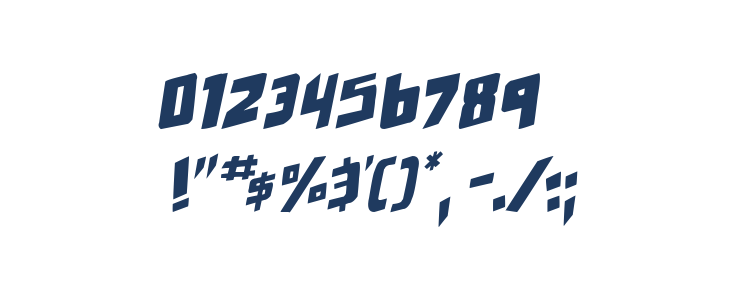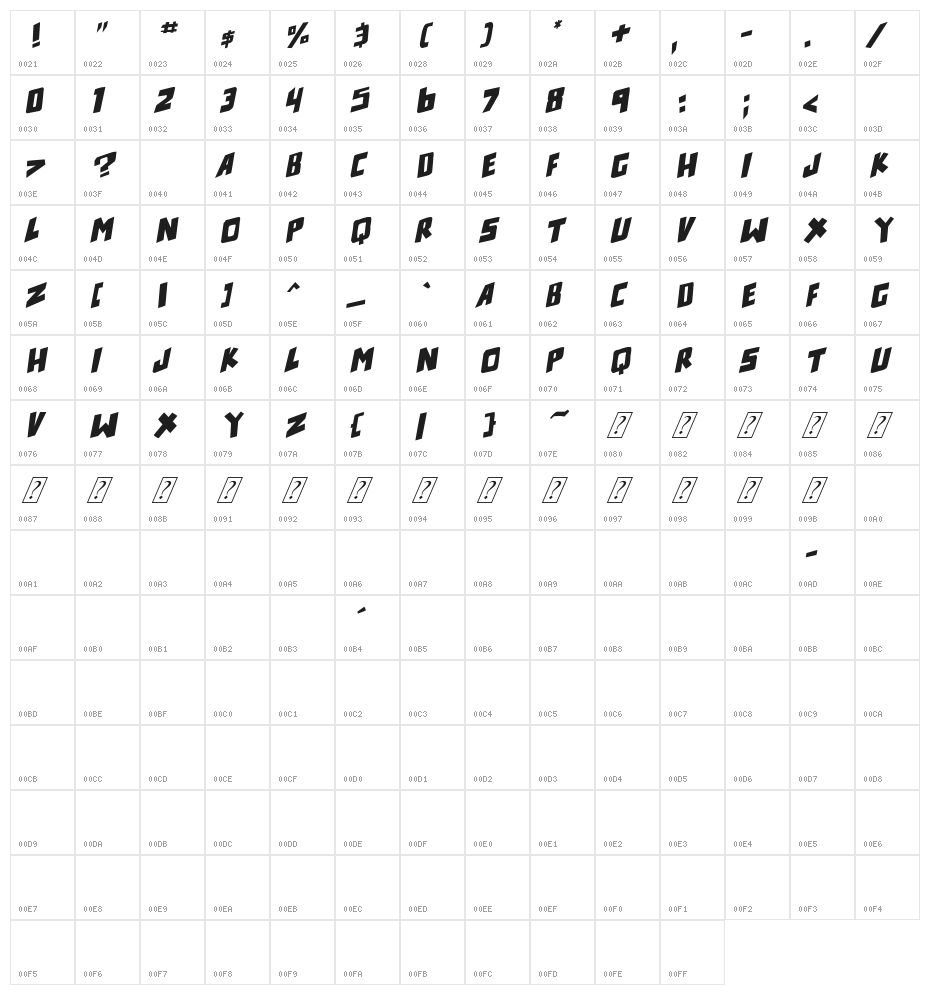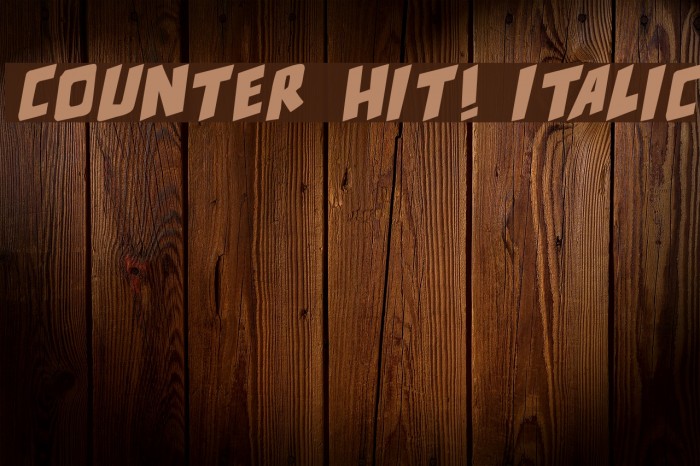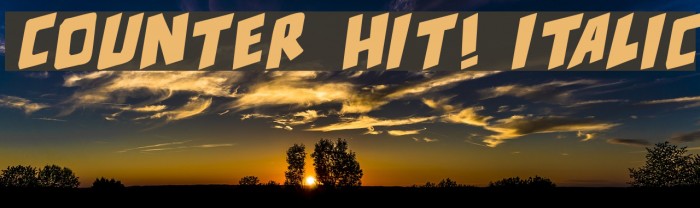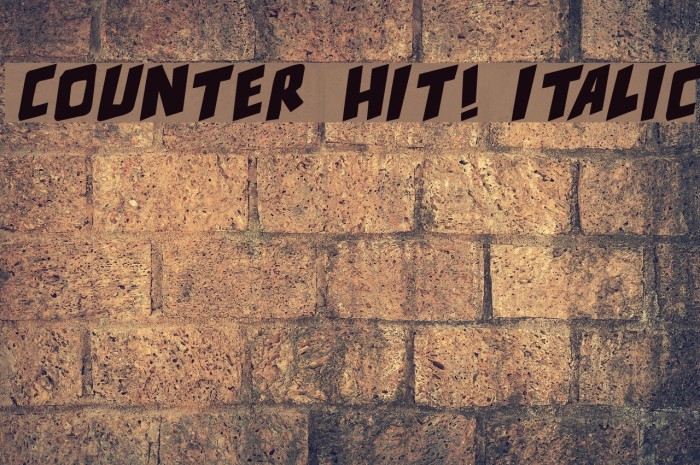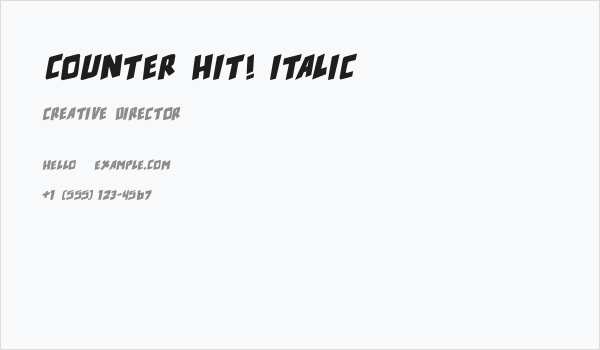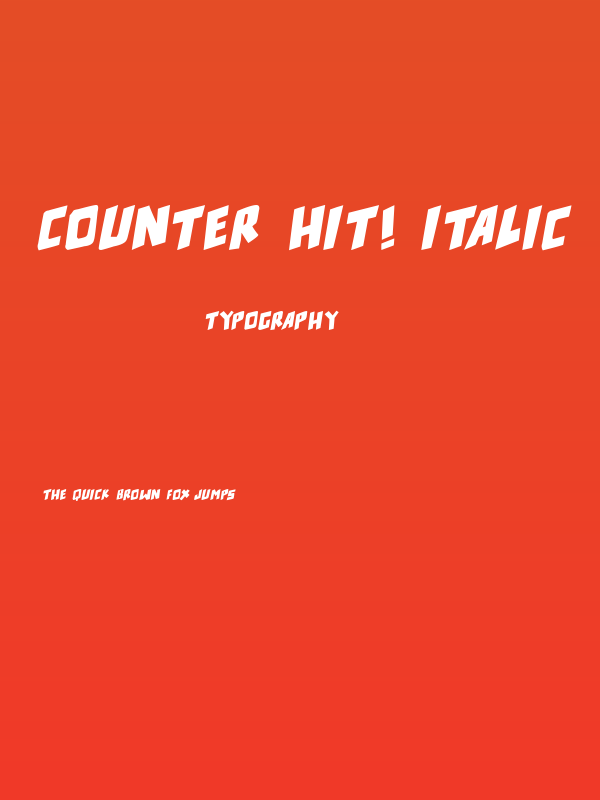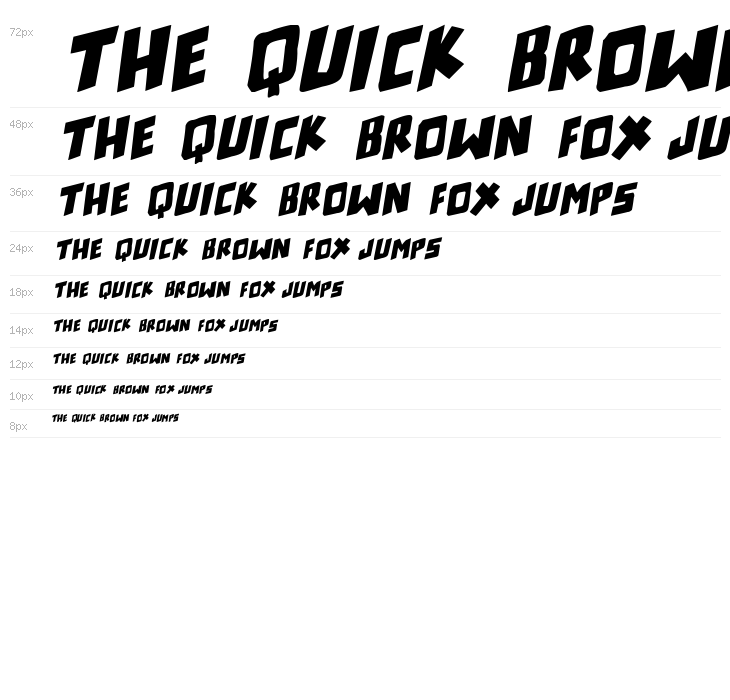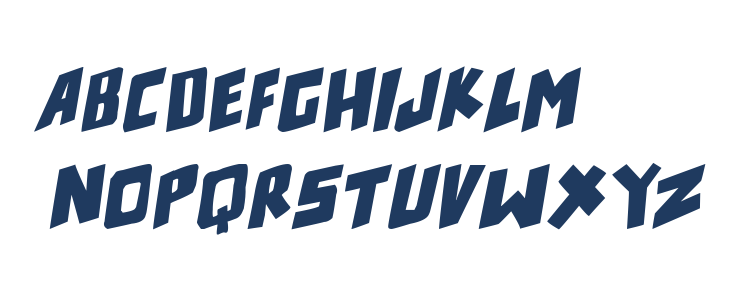
counter hit! Italic Font
counter hit! Italic Description
This font features a bold and dynamic italic style with sharp, angular edges that convey a sense of movement and energy. The characters are slightly condensed, enhancing the aggressive and impactful appearance. The uppercase and lowercase letters maintain a consistent slant, contributing to the cohesive and streamlined look. The numbers and special characters follow the same design principles, ensuring uniformity across all glyphs. The font's high contrast in stroke thickness adds to its striking and bold aesthetic, making it ideal for attention-grabbing designs.
| Proposed Projects | Ideal for sports branding, action-themed posters, video game titles, and dynamic logos. |